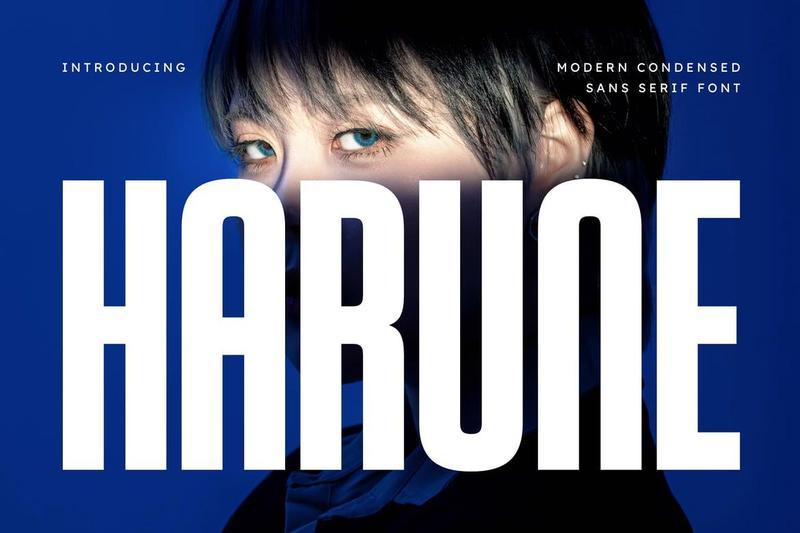
**Harune Modern Condensed Sans Serif Font**
**Harune** is a bold, high-impact, and modern condensed sans serif font, meticulously engineered to bring a commanding structural presence, editorial weight, and premium geometric precision to contemporary display layouts. Built with a towering vertical profile, compact horizontal tracking, and sharp industrial edges, Harune introduces a professional avant-garde, luxury lifestyle, and high-fashion aesthetic that projects supreme visual authority.
This font family is the definitive choice for creative directors, digital publishers, and agency brand designers looking to implement a space-efficient, heavyweight typography identity for prominent text hierarchies. Whether you are developing tech enterprise logotypes, modern cosmetic industry branding, high-end lifestyle magazine covers, cinematic movie titles, or prominent digital live-stream headers, Harune stands out with exceptional legibility and striking geometric confidence.
**Main Features:**
– Modern Condensed Sans Structure: Optimized with a narrow horizontal profile for dense, space-saving, and high-impact title compositions.
– Towering Vertical Proportions: Elongated heights crafted to secure immediate audience attention and an elegant editorial feel.
– Multilingual Support: Fully loaded and prepared for cross-platform international marketing campaigns.
– Luxury & Cyber Aesthetic: Clean linear strokes with a futuristic finish, perfect for cutting-edge lifestyle branding and digital media networks.
**Best Used For:**
High-end editorial layout design, luxury lifestyle branding, cosmetics firm packaging, cinematic title sequences, corporate enterprise logotypes, technology infrastructure headers, and large-scale web splash banners.